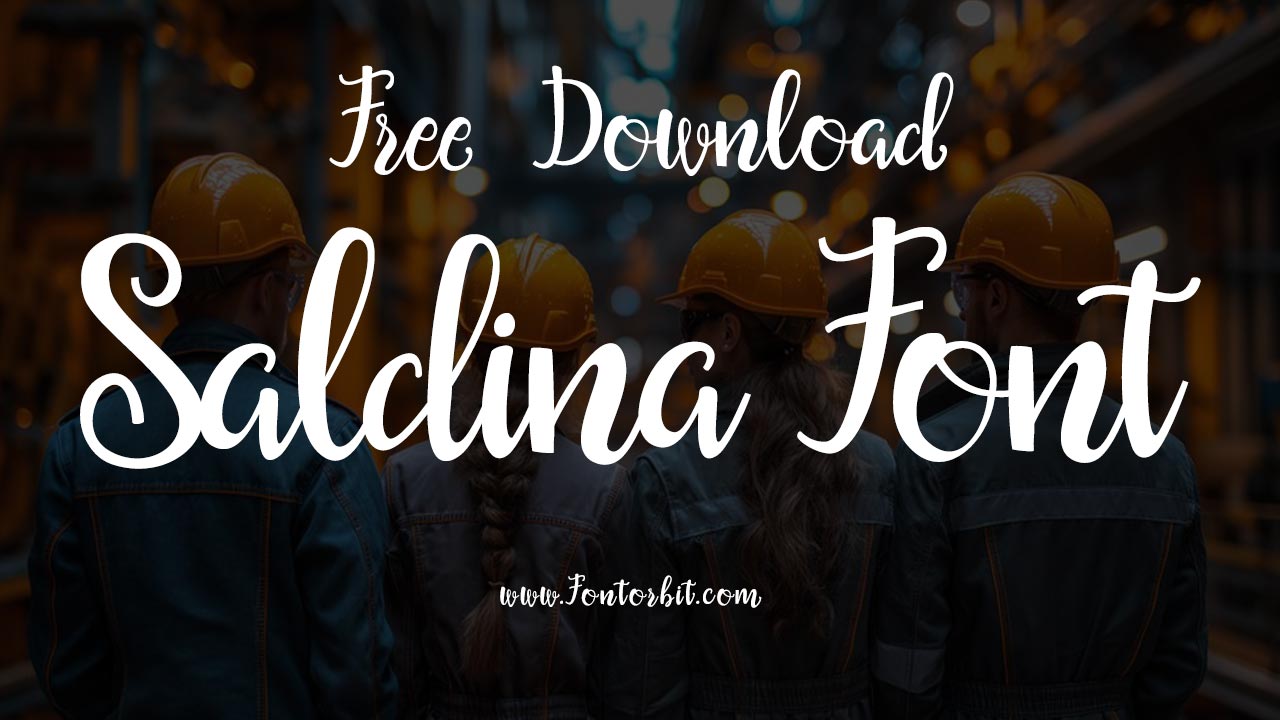
Saldina is a stunning, hand-drawn script font designed by Vanroem Studio. It was initially published in 2015 and quickly gained popularity due to its elegant, flowing design and versatility.
Saldina Font belongs to the script font family, known for its smooth curves and artistic strokes that evoke a sense of personalization and creativity. The font has been widely used in various creative projects, particularly for branding and digital design.
Saldina is a modern calligraphy font that features two font styles—regular and italic. Its handwritten aesthetic makes it perfect for projects requiring a personalized and intimate feel, such as invitations, logos, posters, and more. The Saldina Font Family includes:
a. Saldina Bold
b. Saldina Regular
Notable Uses Of Saldina
The Saldina font is perfect for crafting stunning designs and can be utilized in a wide range of creative projects. Here are some popular applications of Saldina:
- Postcards and flyers
- GIFs
- Wall murals
- Magazine and newspaper advertisements
- Catalogs
- Game interfaces
- Banners and retargeting ads
- Trailers
- Posters, banners, and billboards
- Animated logos
Saldina is best used for personal and artistic projects that require a delicate and creative touch. It performs exceptionally well in branding and logo design, especially for industries that focus on elegance and creativity, such as fashion, beauty, and lifestyle brands.
This font is also a great choice for digital and print media that need an eye-catching and unique look, such as wedding invitations, event posters, or stationery.
The Saldina font is an excellent choice for creatives seeking a handwritten, organic font for branding, social media, invitations, and more.
Its modern calligraphic style makes it versatile and appealing to a broad audience. Whether you’re creating digital content or print materials, Saldina adds a personal touch that stands out.
2.Can I Use The Saldina Font For My Logo?
Yes, Saldina is perfect for logos, especially if you want a personal or hand-drawn feel.
3.What Is The Best Use Of The Saldina Font?
The font is best for invitations, branding, and any design that needs an elegant, hand-written look.
5.What Are Some Fonts Similar To Saldina?
Fonts like Pacifico, Dancing Script, and Lobster are similar in style.
7.What Type Of Projects Is Saldina Suitable For?
Saldina is great for branding, wedding invitations, and personal projects.
8.Who Designed The Saldina Font?
Saldina was designed by Vanroem Studio.
9.Can Saldina Be Used For Web Design?
Yes, it works well in web design for headers, logos, and decorative text.
10.How Many Styles Does Saldina Have?
Saldina comes in two styles: regular and italic.